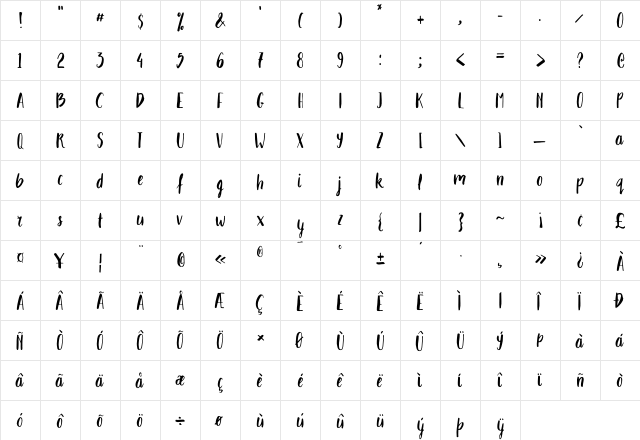
Takhie-Free Regular
Design Context for Takhie-Free Typeface
Takhie-Free is a composed and adaptable typeface that performs quietly and consistently across a wide range of design contexts.